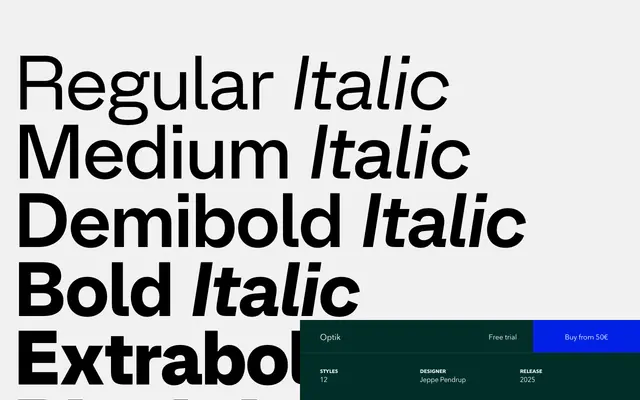
A sans-serif from Copenhagen foundry Playtype with minimal technical detail available from the product page.
Optik is part of Playtype's type catalogue, a Copenhagen-based foundry known for considered, commercially oriented typefaces. The page offers little technical specification, making detailed assessment of weights, language support or intended use difficult to confirm. Playtype's output generally targets editorial and branding contexts.
The page content is too sparse to confirm subcategory with certainty, but Playtype's Optik is a grotesque sans-serif based on available context from the foundry's catalogue.